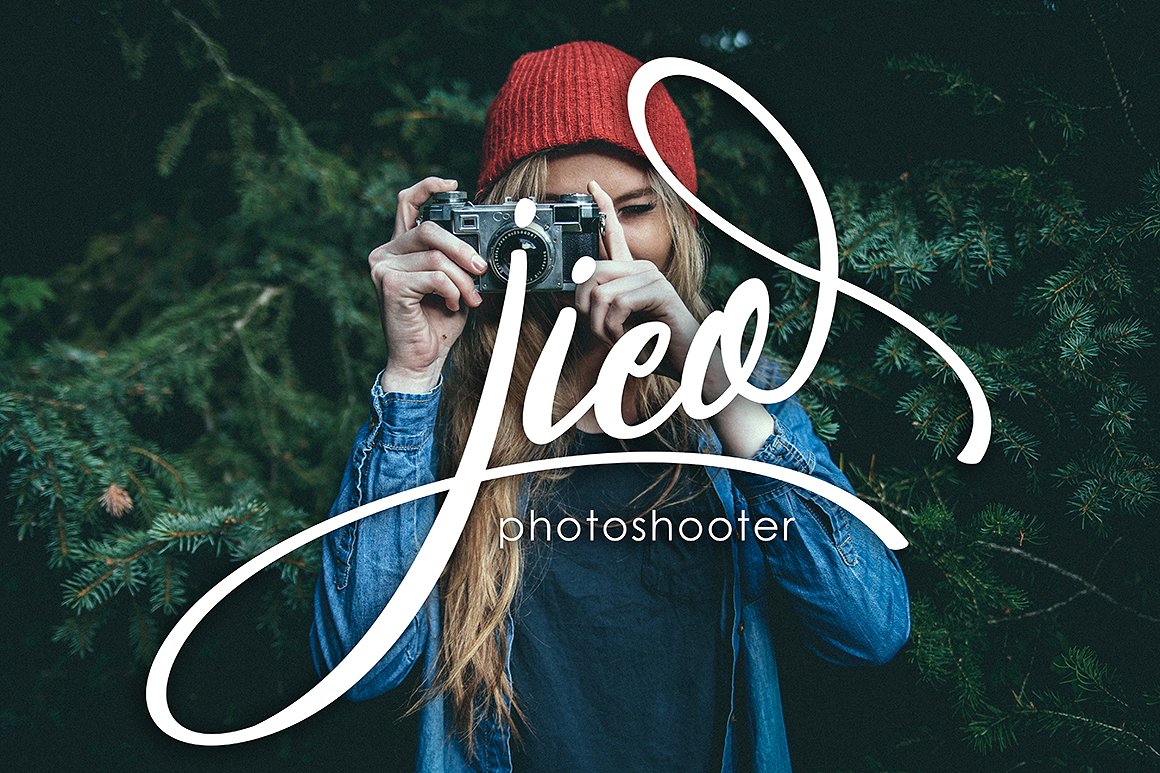
Asmila Script
Asmila Script Font
Asmila Script is a font that has a modern rhythmic base is varied, delicious views and elegant touch. Can be used for various purposes. such as title, signature, logo, wedding invitations, t-shirts, letterhead, signage, labels, newsletters, posters, badges etc.
1. Such a gorgeous font, but how do you make the Jieo abover “photoshooter” in the image for the font? I can’t seem to replicate it.